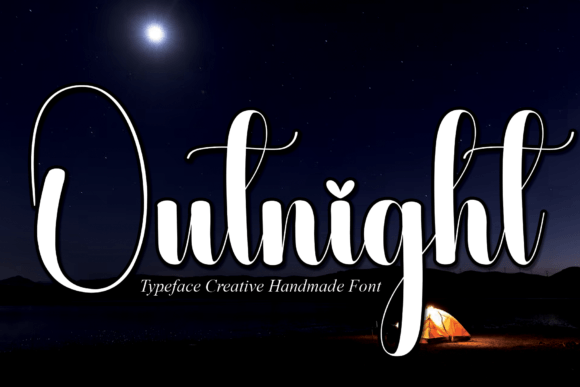
Step into the world of Outnight Script, a captivating handwritten font that will add a touch of elegance and personality to your designs. Crafted with meticulous attention to detail, Outnight embodies the beauty and charm of traditional calligraphy, bringing a sense of authenticity and warmth to your creative projects.
Indulge in the fluidity and grace of Outnight's meticulously crafted strokes, which mimic the natural flow of handwriting. Each letter dances across the page with a unique rhythm, adding a touch of whimsy and charm to your designs. Whether you're creating wedding invitations, branding materials, or social media graphics, Outnight is sure to leave a lasting impression.
Embrace the timeless appeal of Outnight, a font that transcends trends and styles. Its versatile nature makes it the perfect choice for a wide range of projects, from elegant invitations to playful social media posts. Let Outnight be your trusted companion as you bring your creative visions to life.
Unleash your creativity and make a statement with Outnight Script. Its enchanting style and versatility will elevate your designs to new heights, leaving a lasting impression on your audience. Experience the magic of Outnight today and embark on a creative journey like no other!